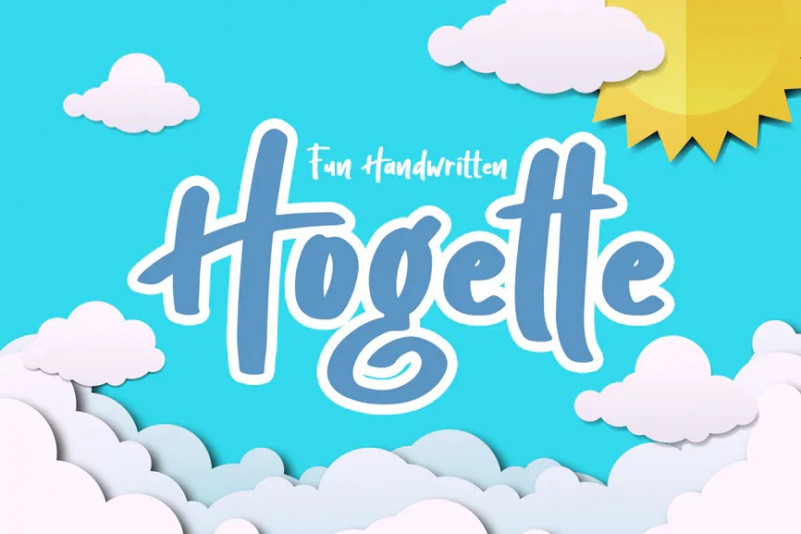
Hogette Font
Introducing Hogette Font. Hogette is a lovely playful font . Made with naturally handwritten. The font will make your design more beautiful and powerful. This font is suitable for any design like branding, quotes and etc. I hope you enjoy it !! Thanks for visiting and downloading my font!